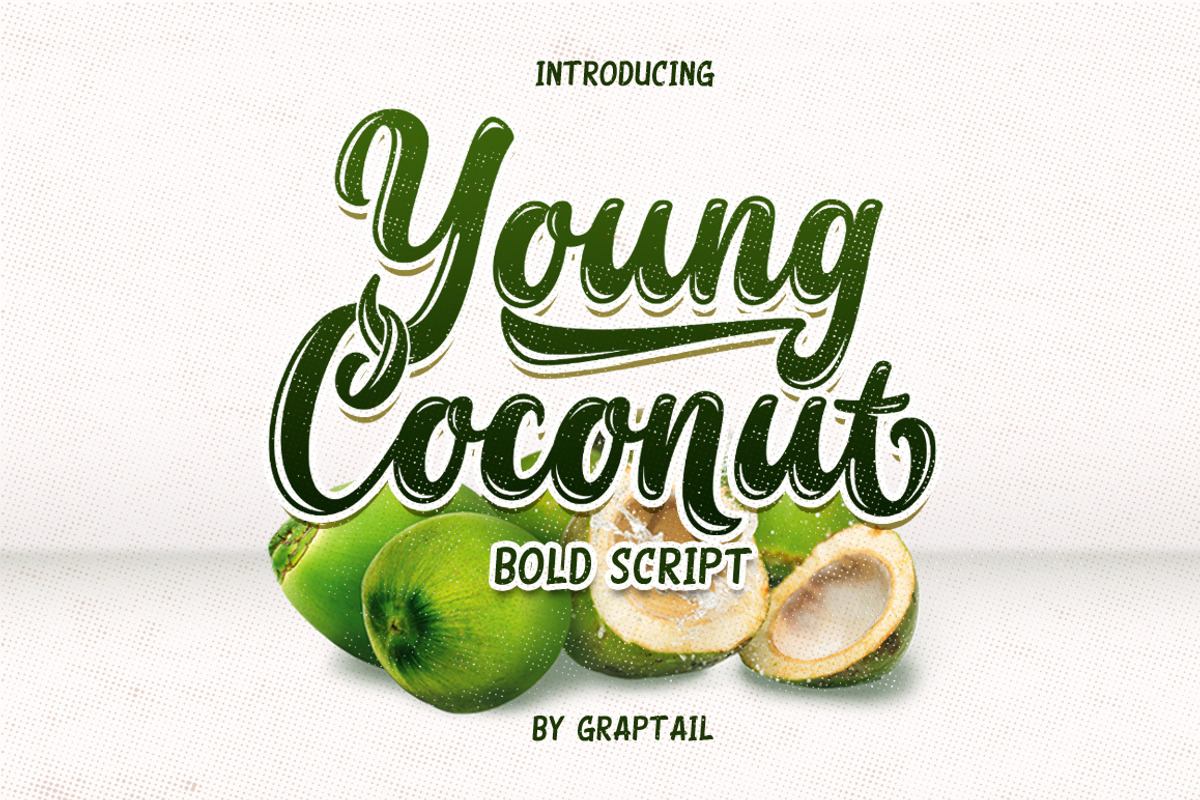
Young Coconut Font Free Download is a fun, fresh, and tropical-inspired typeface that brings sunny vibes and playful charm to your designs. With its smooth, rounded letters and hand-drawn feel, this font is perfect for summer-themed graphics, beach party invitations, drink packaging, travel blogs, and colorful branding projects.
Designed to feel breezy and laid-back, Young Coconut Font Free Download captures the essence of a tropical escape. It’s ideal for creators who want to add a splash of personality, warmth, and joy to their visuals—whether for digital or print.